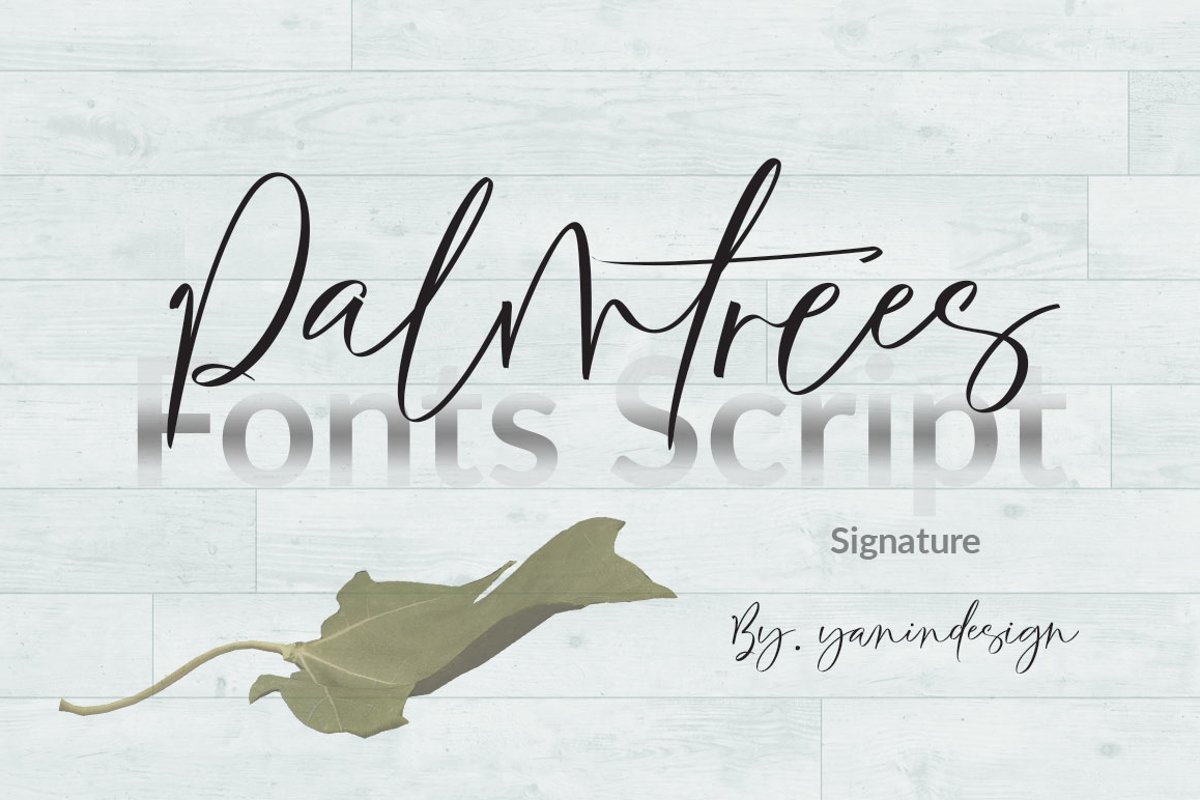
Palmtrees
Hello Palmtrees! - A new Signature script with awesome, endless possibilities. A perfect addition to the professional designers font.
Palmtrees a natural signature style font, loaded with awesome opentype features, including 119 natural looking ligatures, Staylistic Set 104, as well as a full alternate upper and lowercase character set and multilingual too.